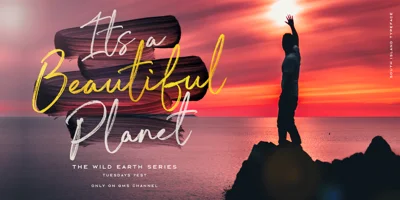
Perfume Font
The Perfume Font is ideal for luxury fragrance brands, high-end cosmetic packaging, elegant beauty salons, sophisticated perfumery boutiques, premium skincare lines, exclusive spa materials, fashion week presentations, and refined feminine lifestyle brands. This exquisite typeface excels in applications where sensual elegance and olfactory sophistication need to be emphasized, making it perfect for beauty companies that want to communicate luxury, allure, and timeless feminine grace through captivating visual identity.
What makes Perfume Font exciting is its intoxicating elegance and sensual sophistication that captures the essence of luxury fragrance and feminine allure. The font's graceful letterforms and refined character design create an atmosphere of mysterious attraction and sophisticated beauty, making it ideal for brands that want to evoke desire, elegance, and the art of seduction through typography. Its alluring presence ensures that every application feels like a bottle of expensive perfume with irresistible appeal.
The Perfume Font family typically includes light, regular, and elegant weights, often featuring delicate flourishes, fragrance-inspired elements, and sophisticated ornaments that enhance its luxurious appeal. Many versions include perfume bottle motifs, floral decorations, and specialized characters that provide designers with comprehensive tools for creating authentic beauty industry design projects with genuine luxury fragrance sophistication and feminine elegance.
For designers working on projects that require luxury beauty authenticity and feminine sophistication, Perfume Font delivers exceptional sensual appeal. Its ability to instantly communicate elegance and luxury attraction makes it an invaluable choice for beauty brands, fashion houses, and any project requiring typography that embodies the intoxicating allure of fine fragrance, the sophistication of luxury beauty, and the timeless appeal of feminine elegance and sensual sophistication.